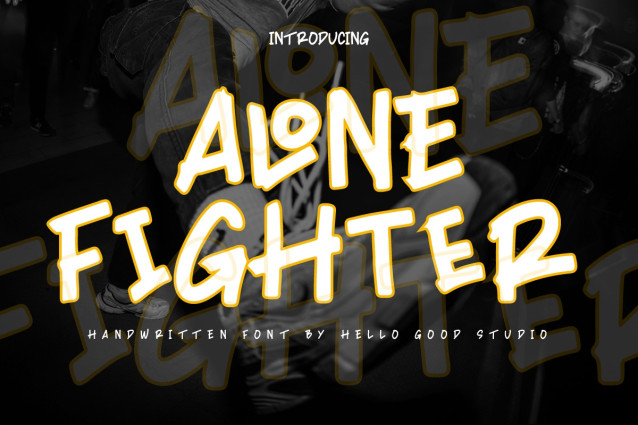
Alone Fighter Font
Alone Fighter Font is a bold and energetic display font inspired by the spirit of determination, resilience, and victory. With its hand-drawn strokes, dynamic shapes, and strong visual presence, this typeface is designed to make every word stand out.
Perfect for sports branding, gaming projects, streetwear designs, posters, headlines, logos, merchandise, and social media content, Alone Fighter brings a powerful and fearless personality to your creative work.
Whether you’re creating motivational designs or eye-catching promotional materials, Alone Fighter delivers an authentic, confident, and impactful look that commands attention.